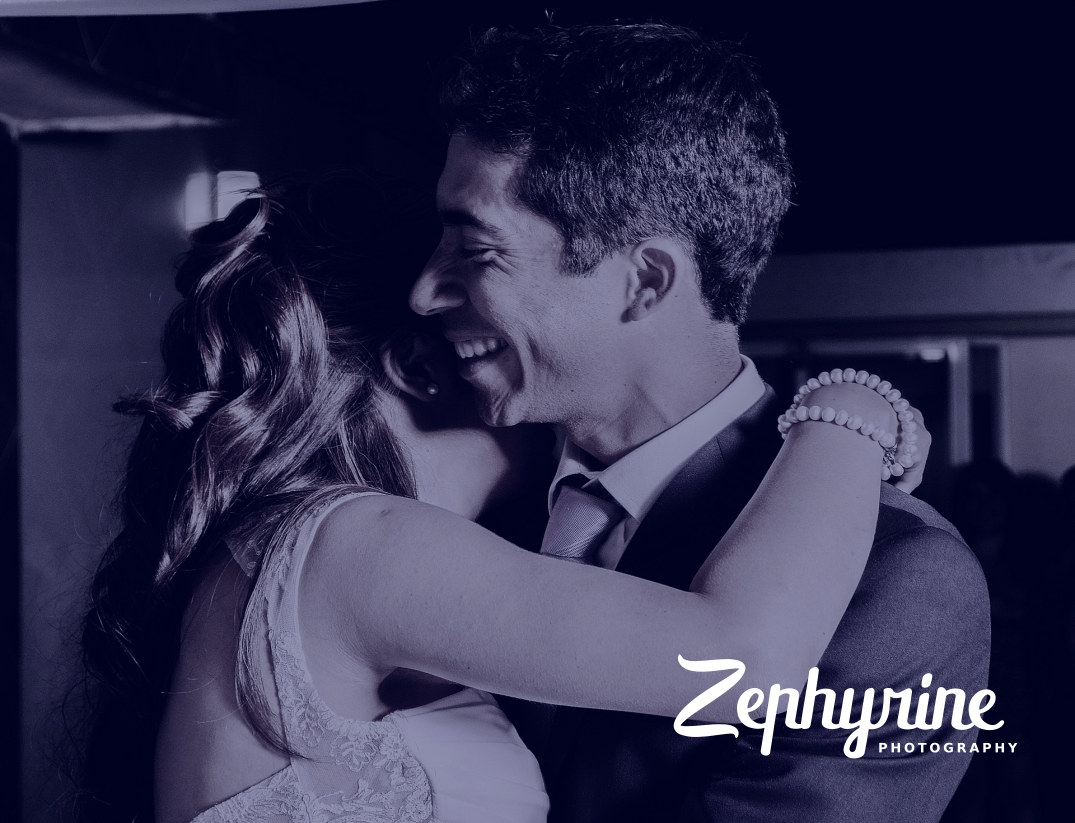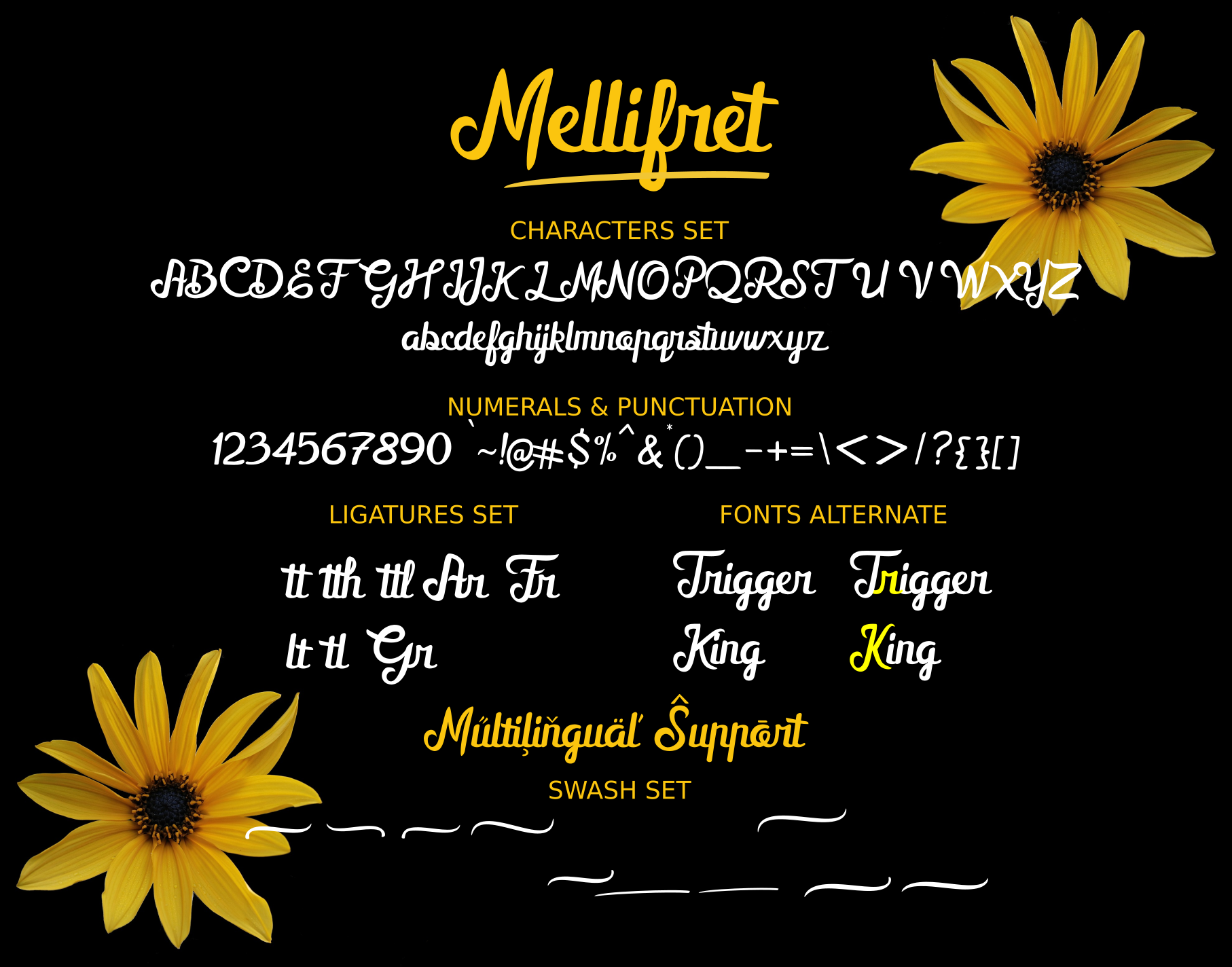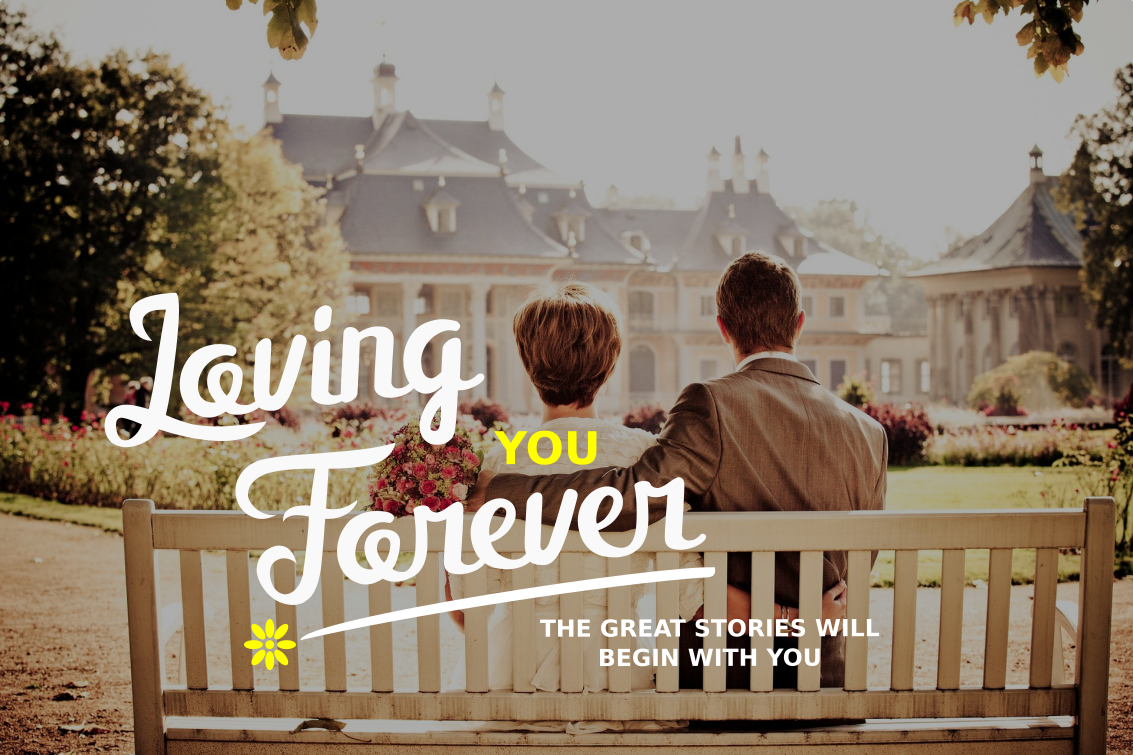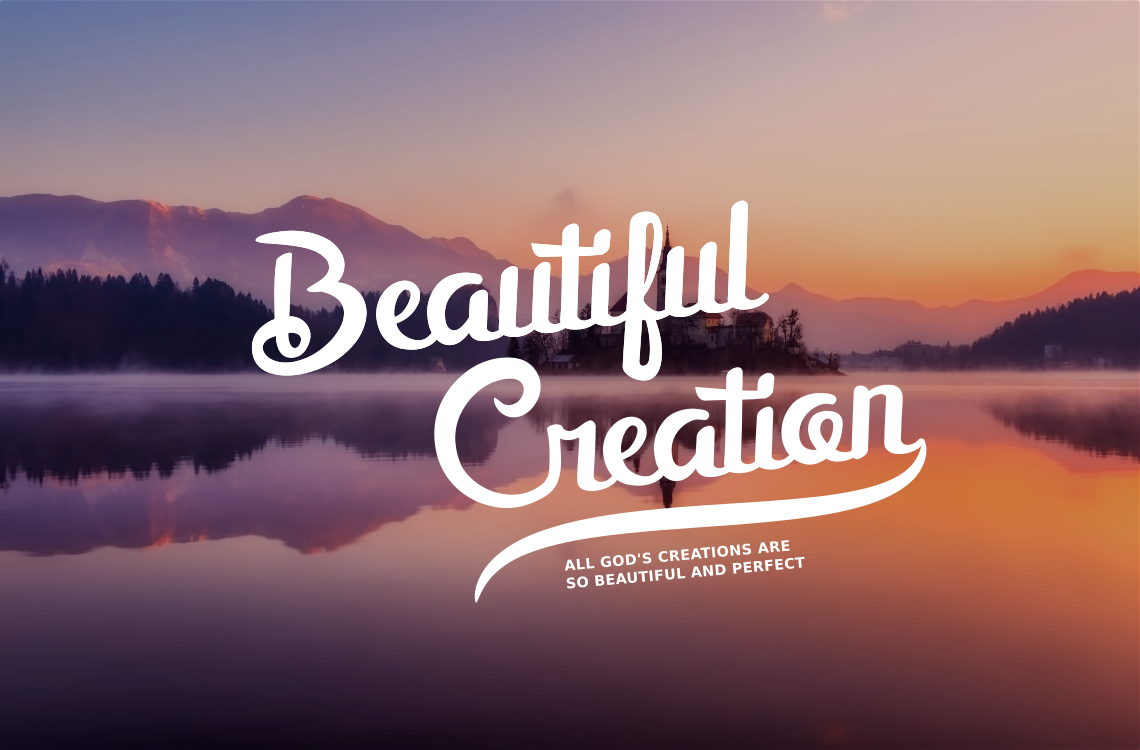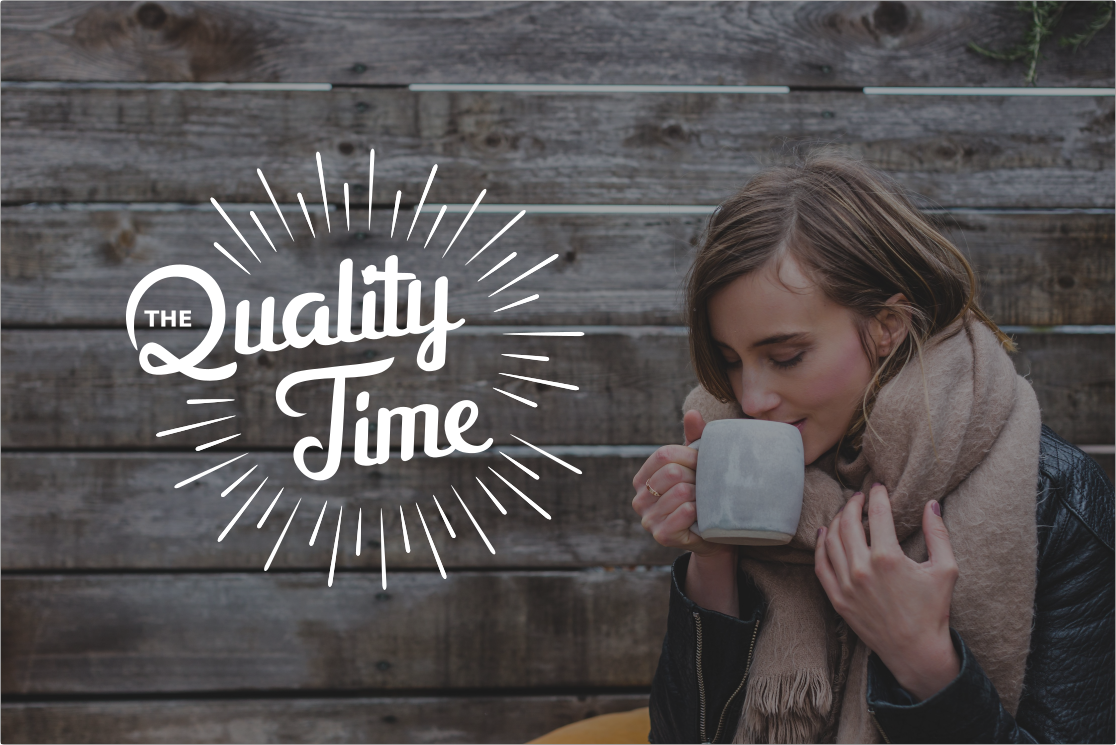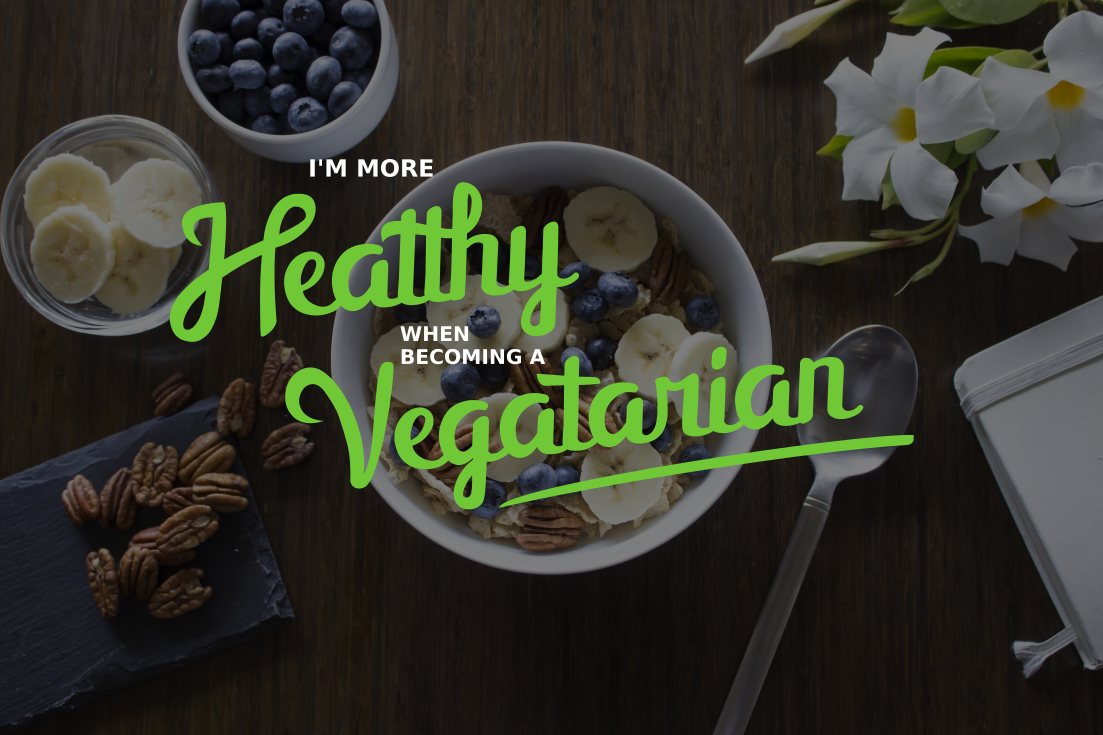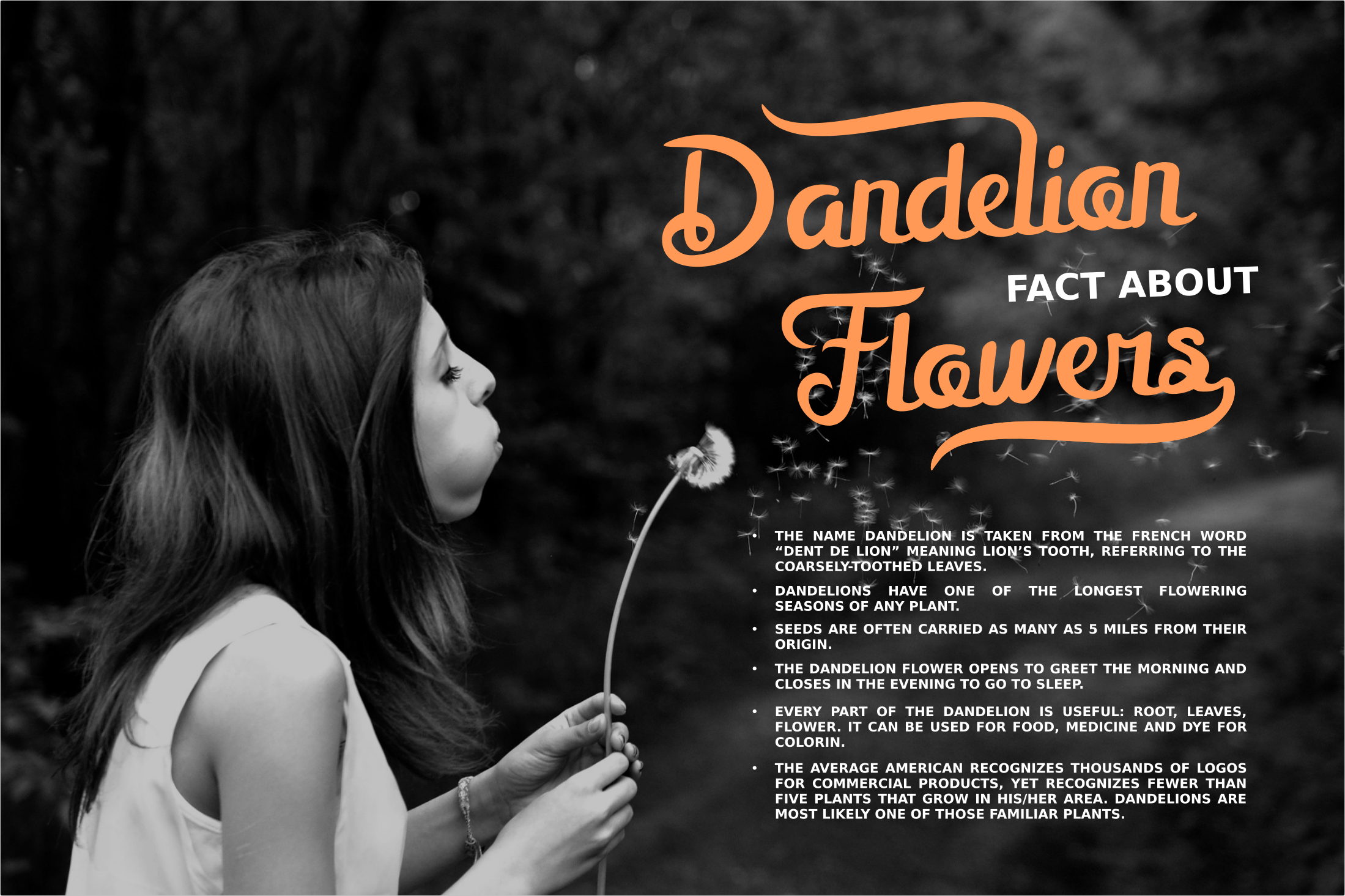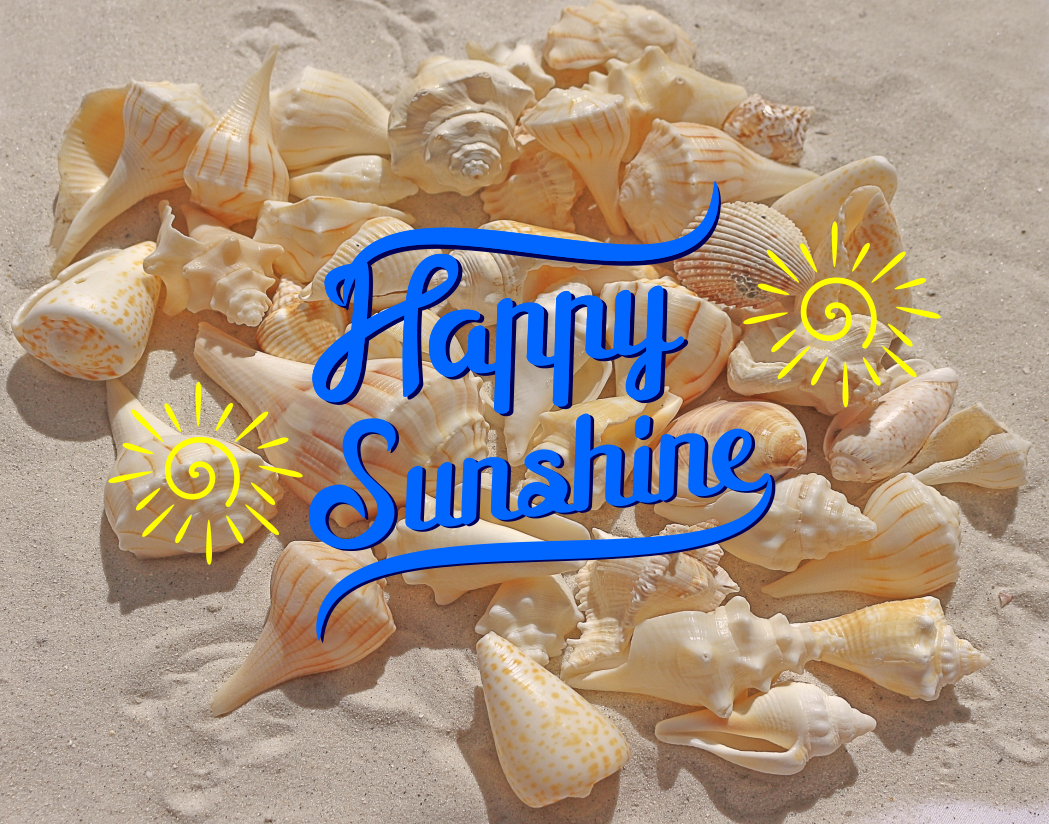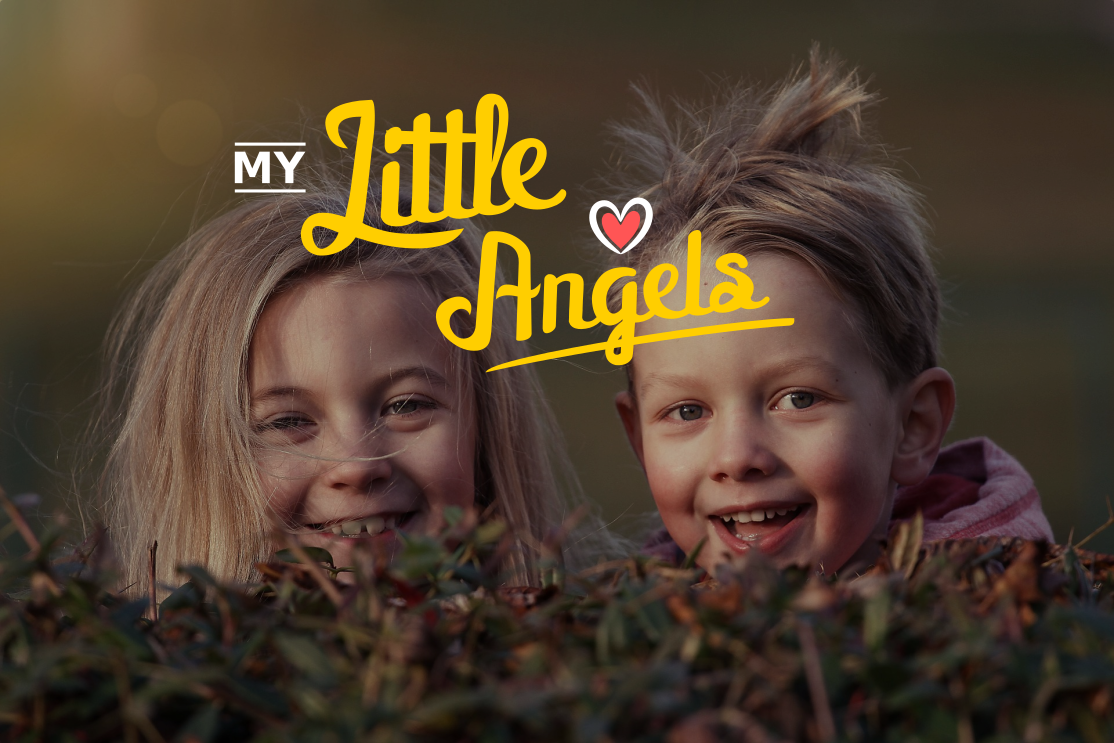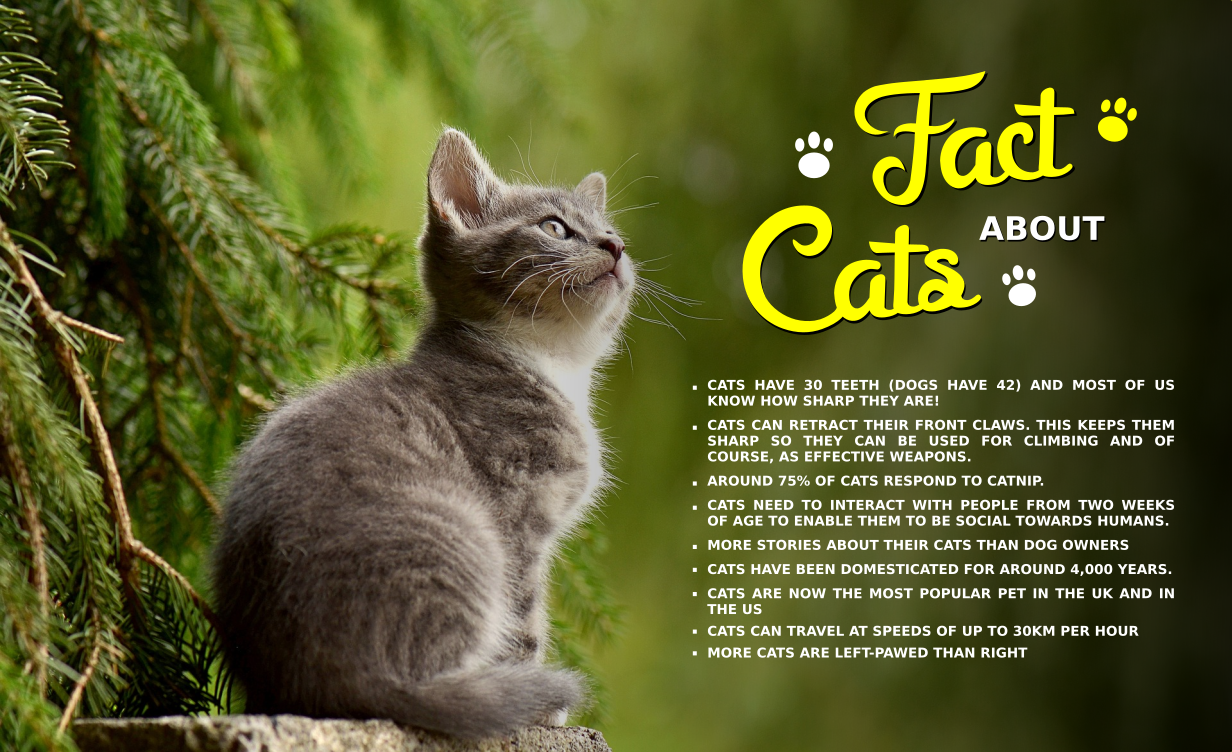
Mellifret Font
About Mellifret Font
Mellifret is semi-bold script font that has characters that are strong, bold, clean, and elegant. Suitable for display and decorative purposes, Mellifret is a font not to be missed.